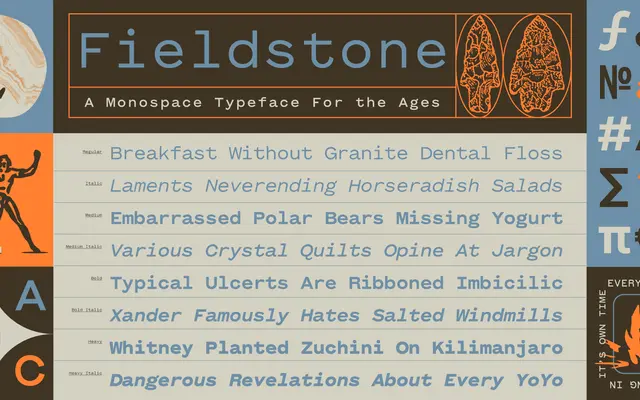
Fieldstone
Fort Foundry · Mattox Shuler
A fixed-width sans with sturdy forms softened by friendly curves, designed for both utilitarian and editorial applications.
Designed by Mattox Shuler, Fieldstone is a monospace with an unusual character: angular, almost architectural letterforms sit alongside unexpectedly warm curves and small idiosyncratic details. Eight styles span Regular to Heavy with matching italics, and a variable font is included. The broad language coverage and confident personality make it a workable choice across packaging, editorial and interface contexts.
The foundry explicitly describes Fieldstone as a quirky monospace; its fixed-width construction and sans letterforms place it firmly in the mono category with a sans-influenced subcategory.